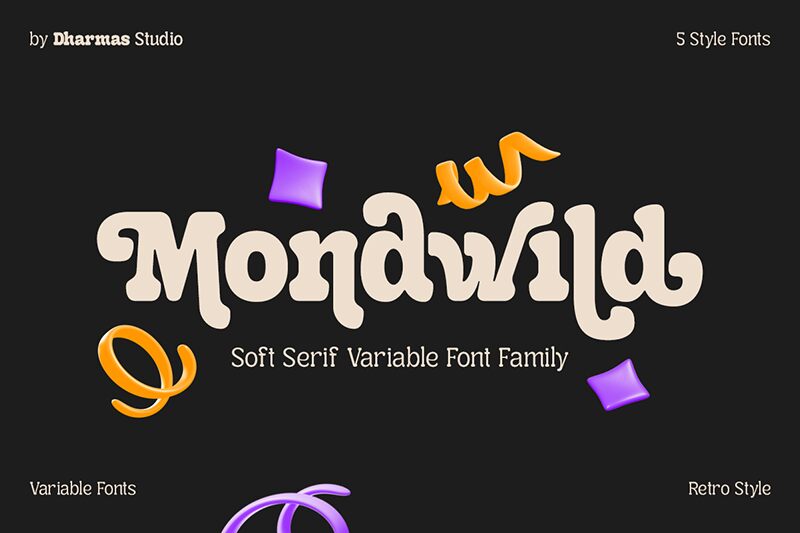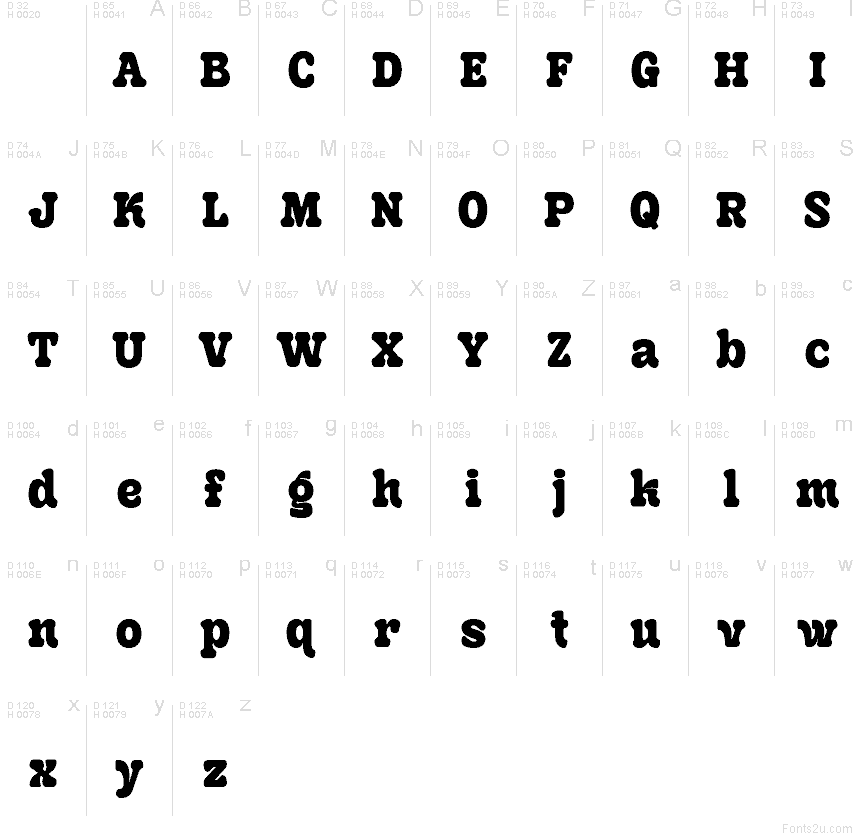
MondwildDEMO-ExtraBold
Mondwild ExtraBold font by Dharmas Foundry is a free retro display typeface that looks like it’s been poured onto the page in thick, inky blobs. Huge, rounded forms, tight spacing, and soft, pillowy curves give every word a bouncy, almost cartoonish weight that you can feel. It’s bold without being sharp or aggressive, trading edges for playful puddles of black that instantly command attention.
Using Mondwild ExtraBold, this free font shines on posters, merch, kids’ products, packaging, party invitations, social media graphics, and branding that needs a loud, friendly voice. Its chunky rhythm makes short headlines and logos especially punchy, so keep copy brief and scale it up generously. For balance, pair Mondwild from the same family with a clean geometric sans in smaller text to let those juicy lettershapes really stand out.